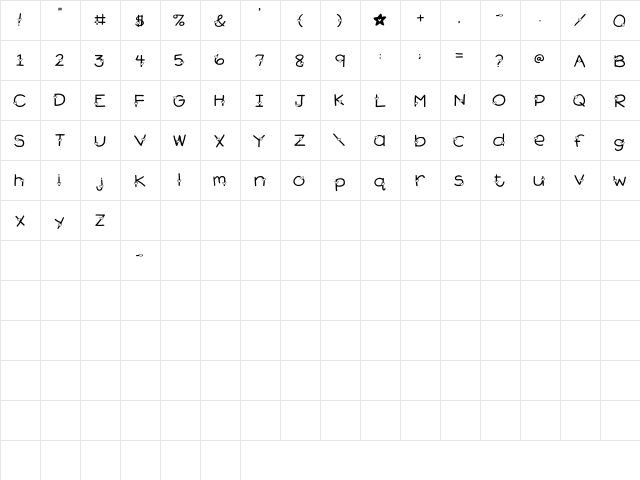
2Peas Heart's Delight 2Peas Heart's Delight Font Preview
Design Context for 2Peas Heart's Delight Typeface
2Peas Heart's Delight is a composed and adaptable typeface that performs quietly and consistently across a wide range of design contexts. The delicate stroke weight brings airiness and refinement to layouts.